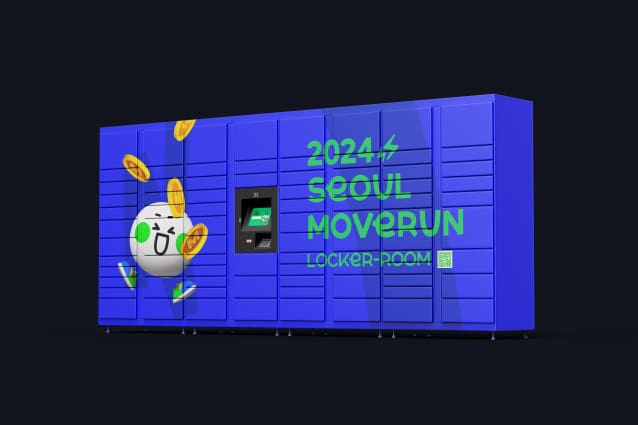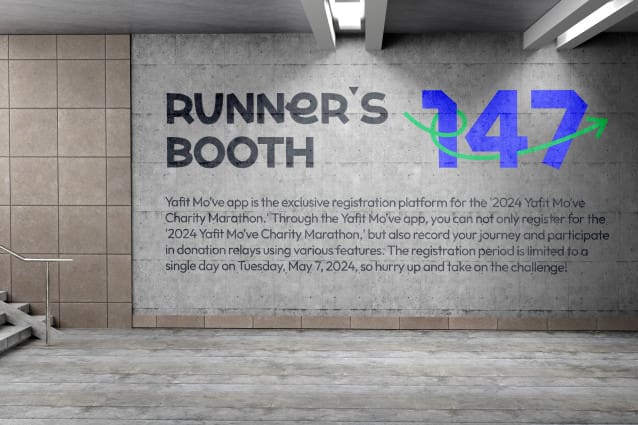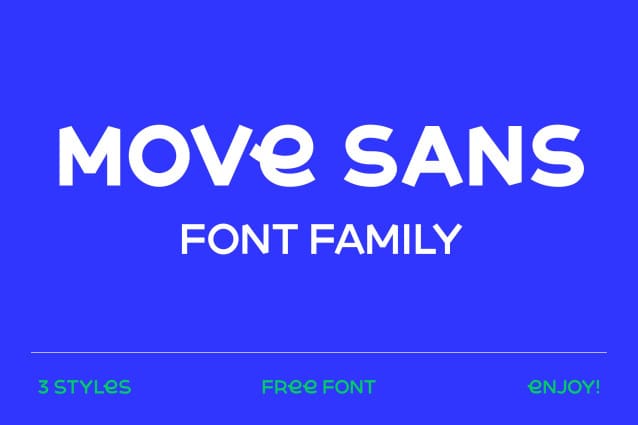
Move Sans Font
Move Sans Font, includes 26 letters of the English alphabet, 36 symbols, 11 emojis and numbers. This is a family typeface available in light, medium, and bold weights. The emoticons include expressions of [Doodoo] and frequently used icons from Yafit Mo’ve. Among the 26 letters, the [e] is designed in lowercase, representing the brand identity of [My Joyful Route] and [energy].